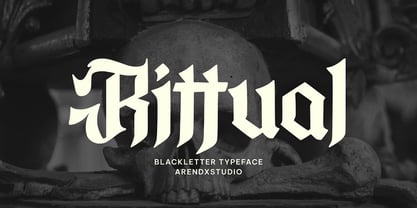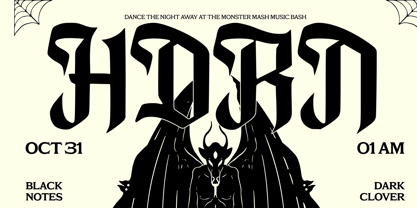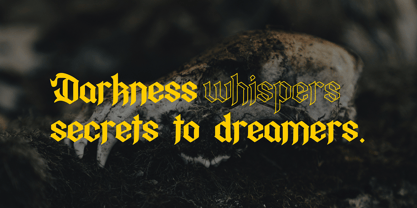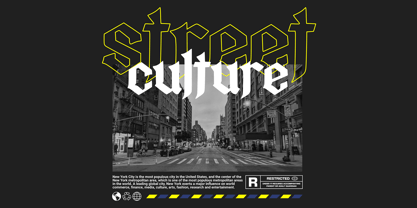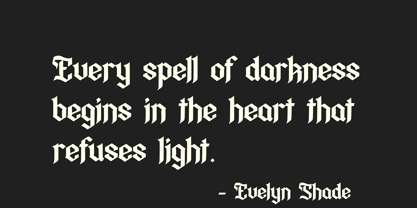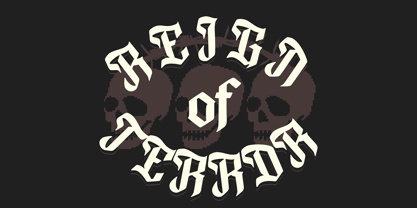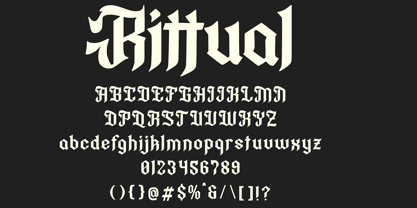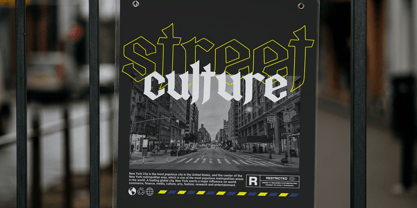
Rittual
by Arendxstudio
The Rittual Font Family was designed by Asep Rendi and published by Arendxstudio. Rittual contains 1 styles. More about this family
Unleash the ancient power and dramatic allure of typography with Rittual, a commanding blackletter font designed to make an unforgettable statement. Crafted by Arendxstudio, this typeface is a bold revival of classic Gothic script, meticulously refined for the demands of modern design. Ritual transcends mere letters; it's a visual incantation, perfect for projects requiring a sense of history, gravity, and powerful mystique. The font's heavy, chiseled strokes and dramatic, pointed serifs lend an air of authenticity and timeless strength. Its structure embodies the intricate, ornate artistry of traditional blackletter, yet with a clean, contemporary execution that ensures readability and impact. Whether you are designing powerful packaging, creating intense album art, branding a sophisticated distillery, or crafting compelling promotional material for events with a dark or dramatic theme, Ritual provides the perfect foundation.
Designers: Asep Rendi
Foundry: Arendxstudio